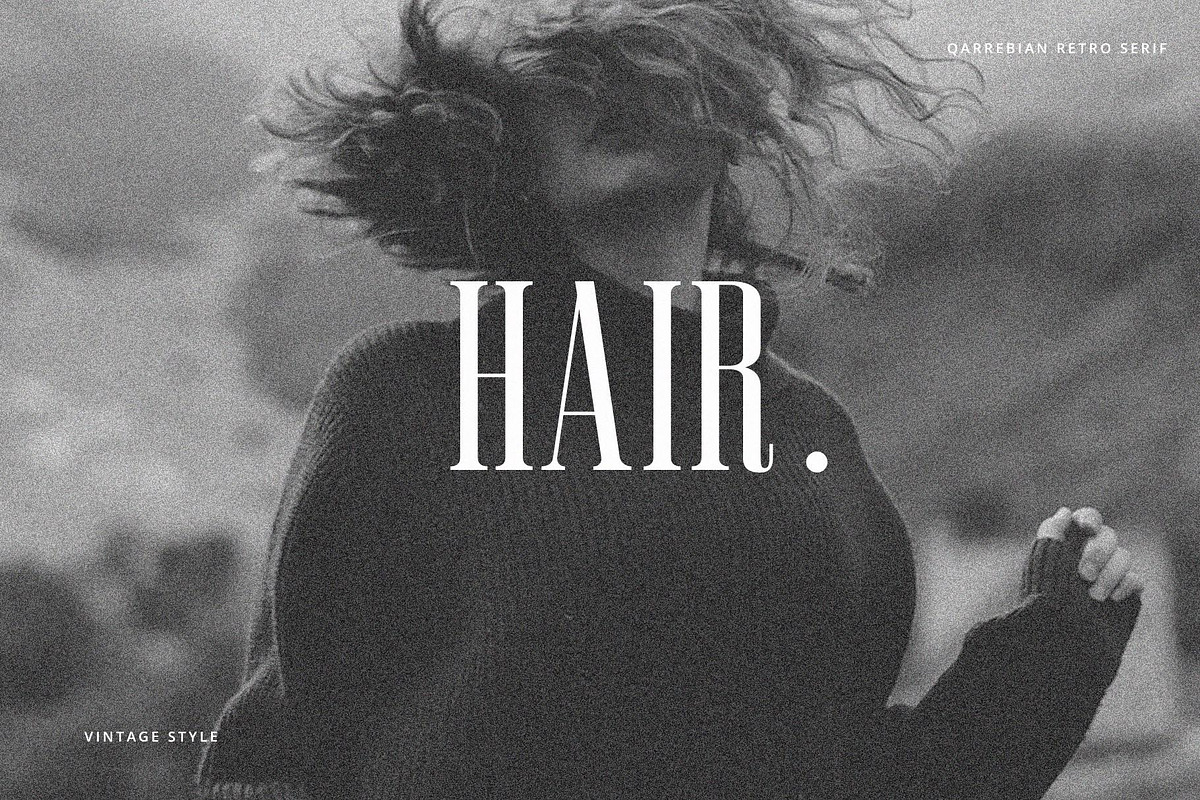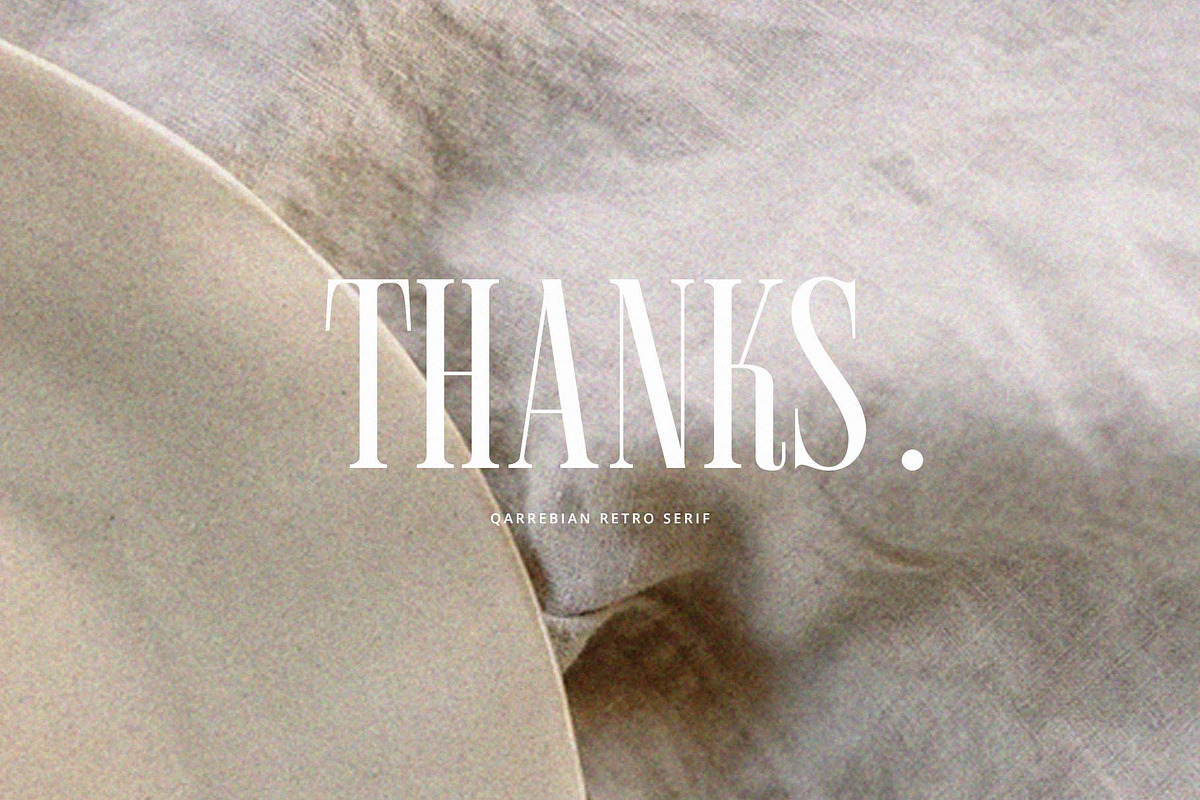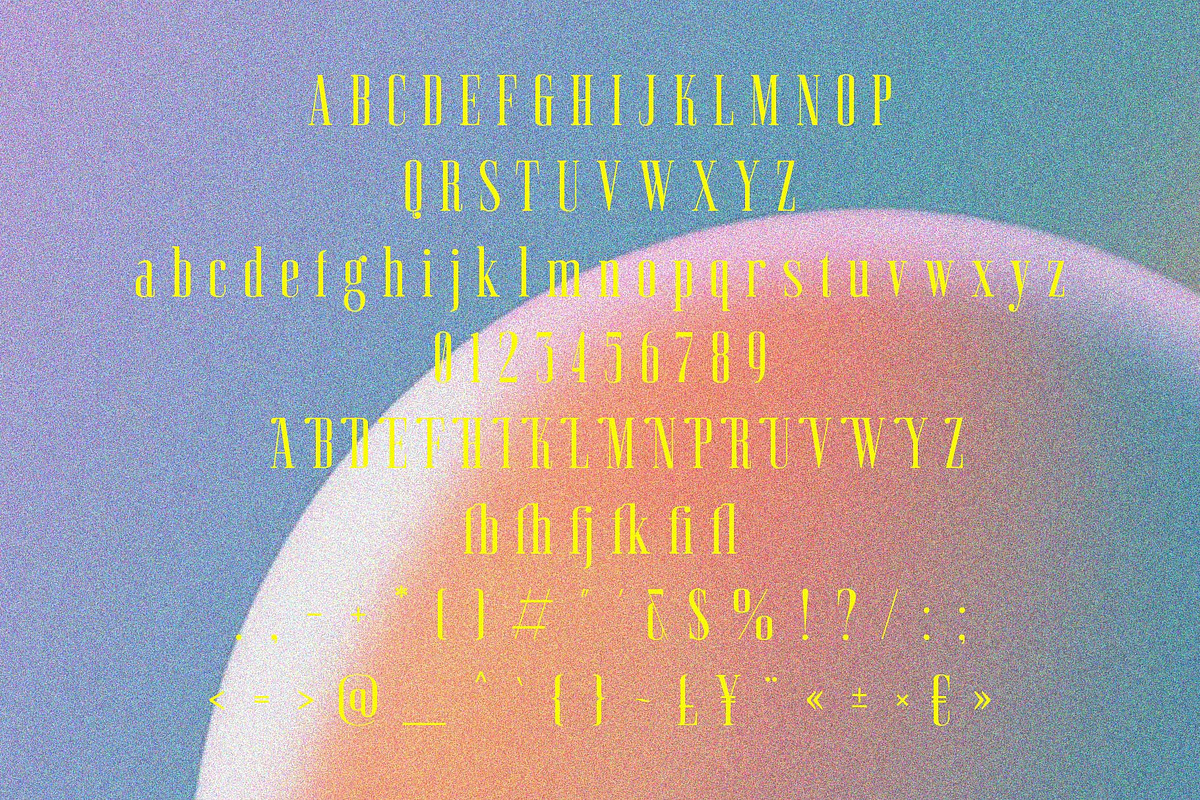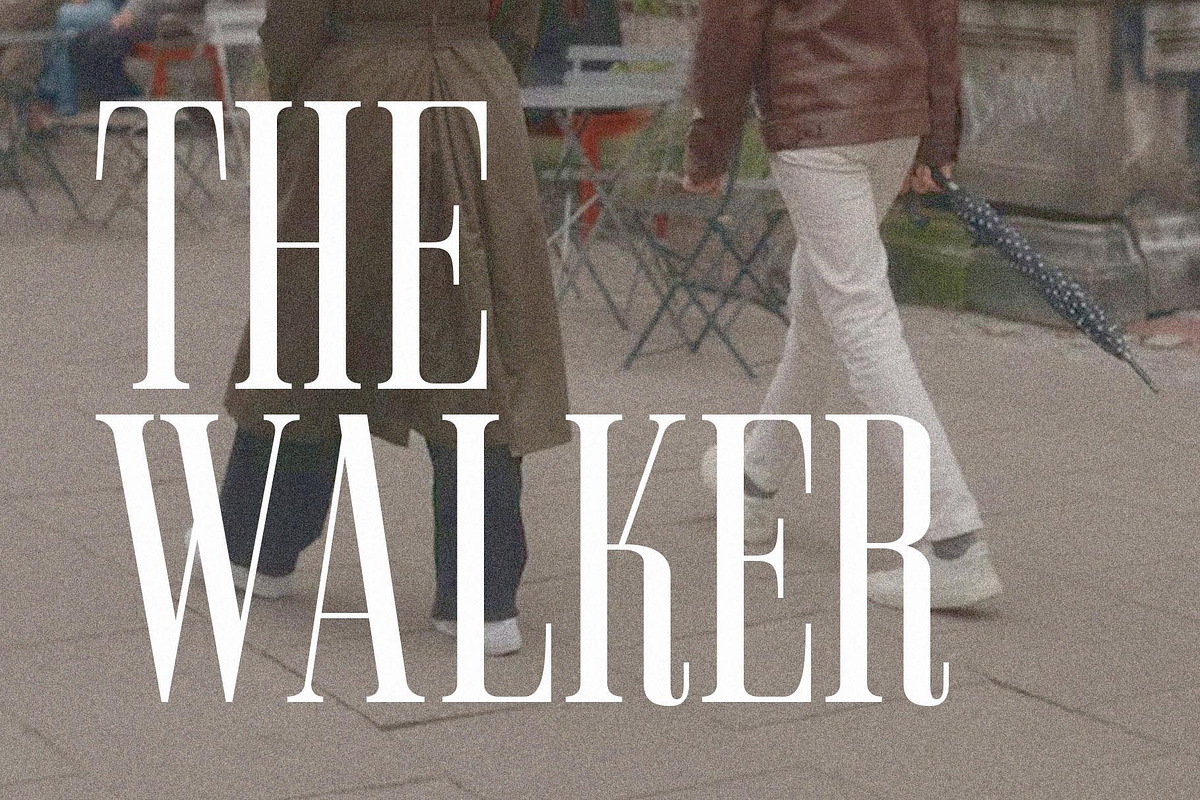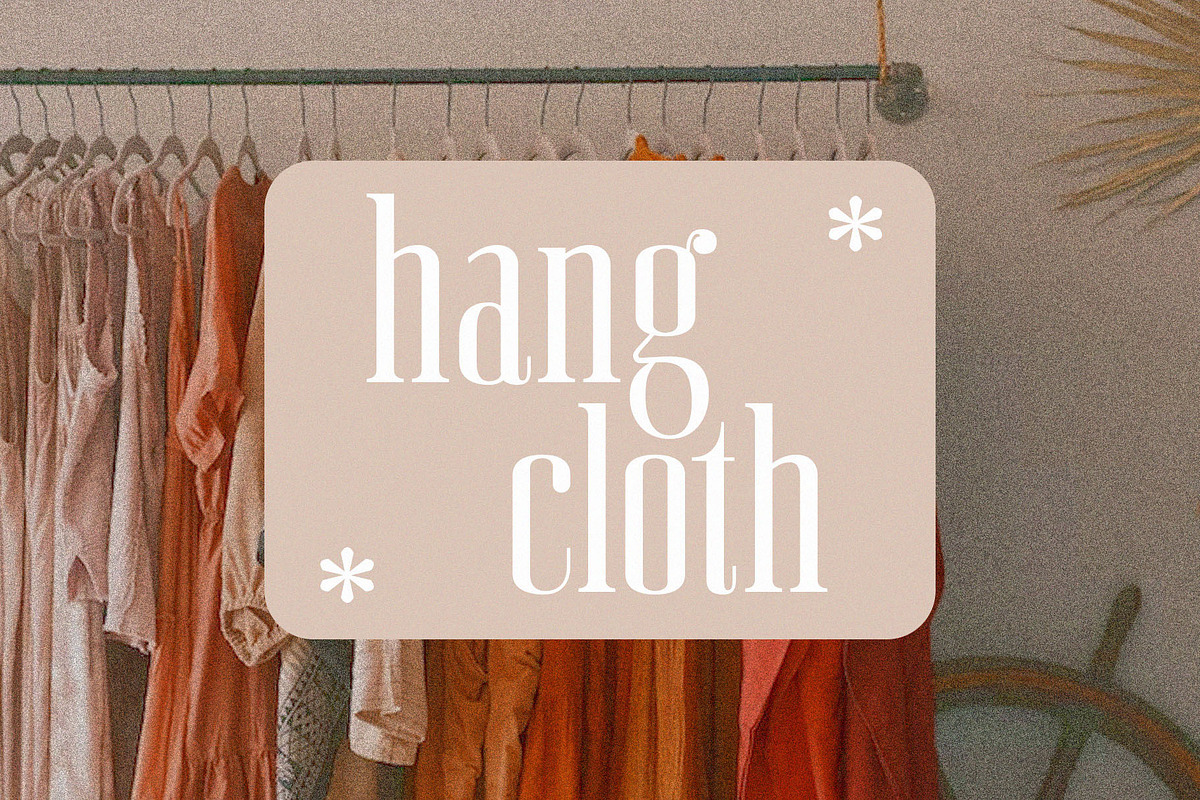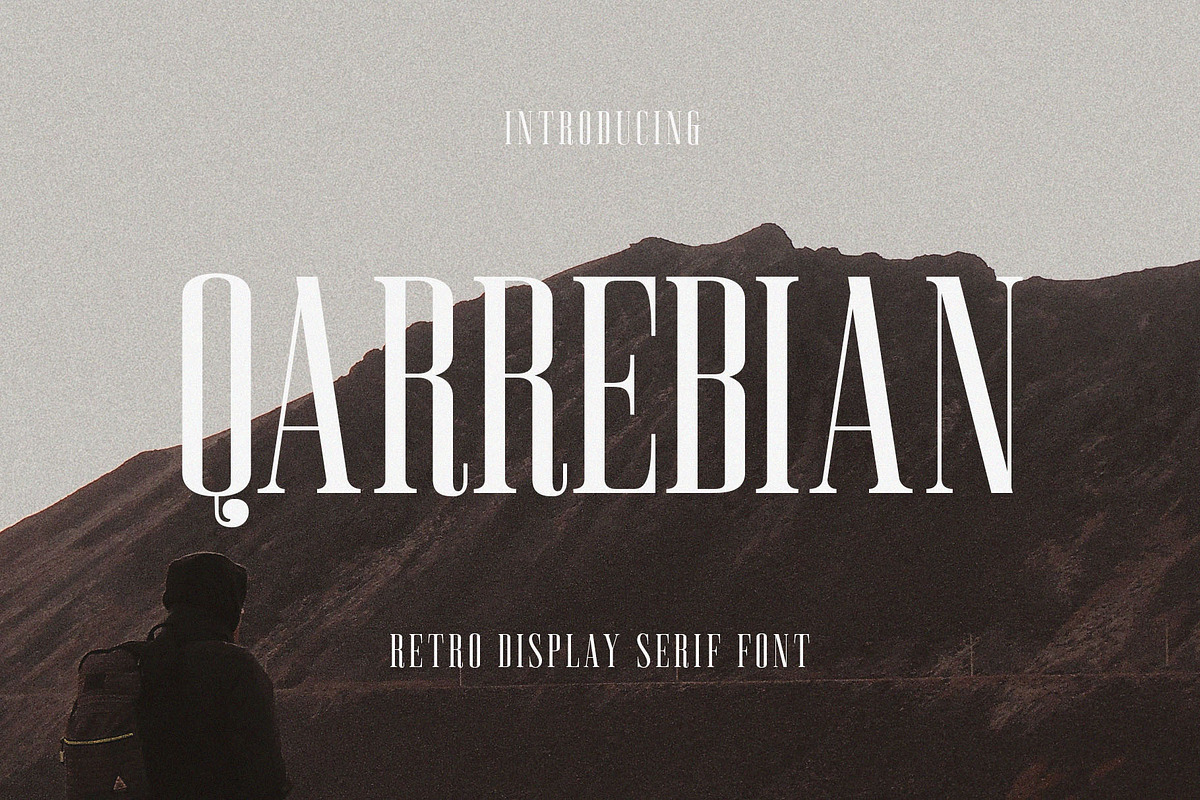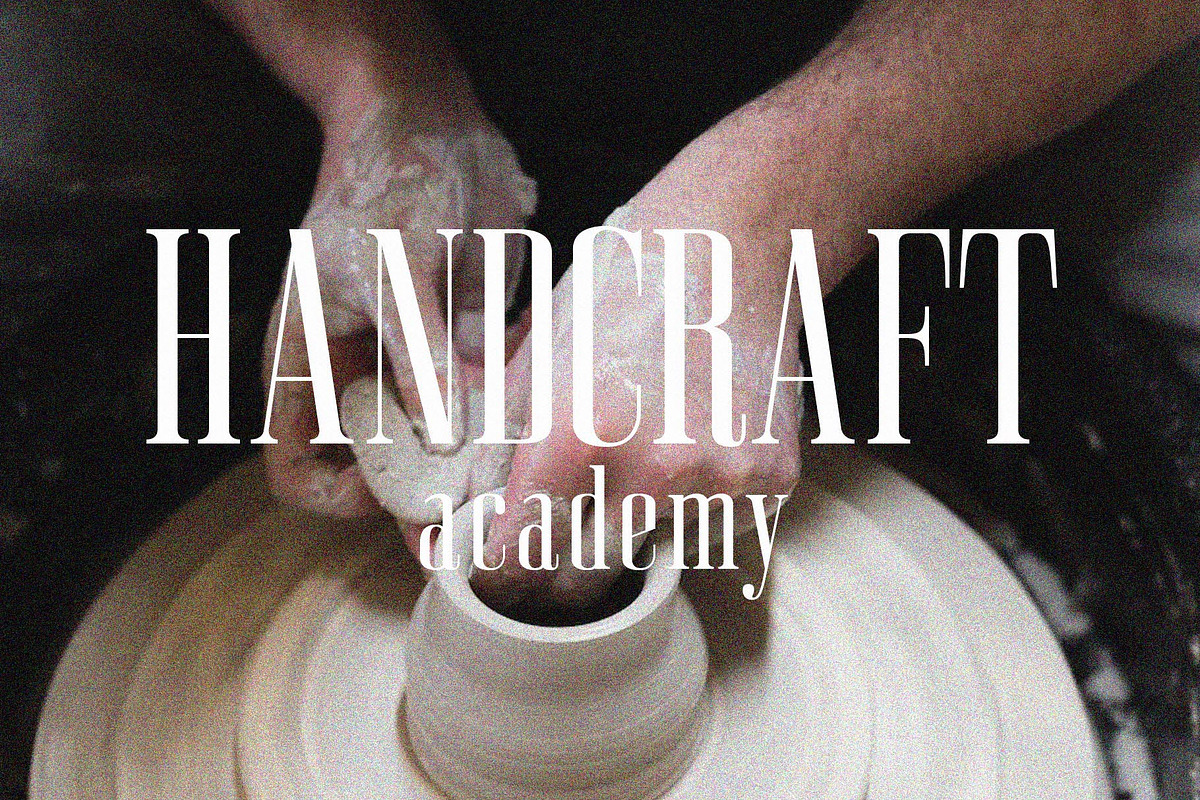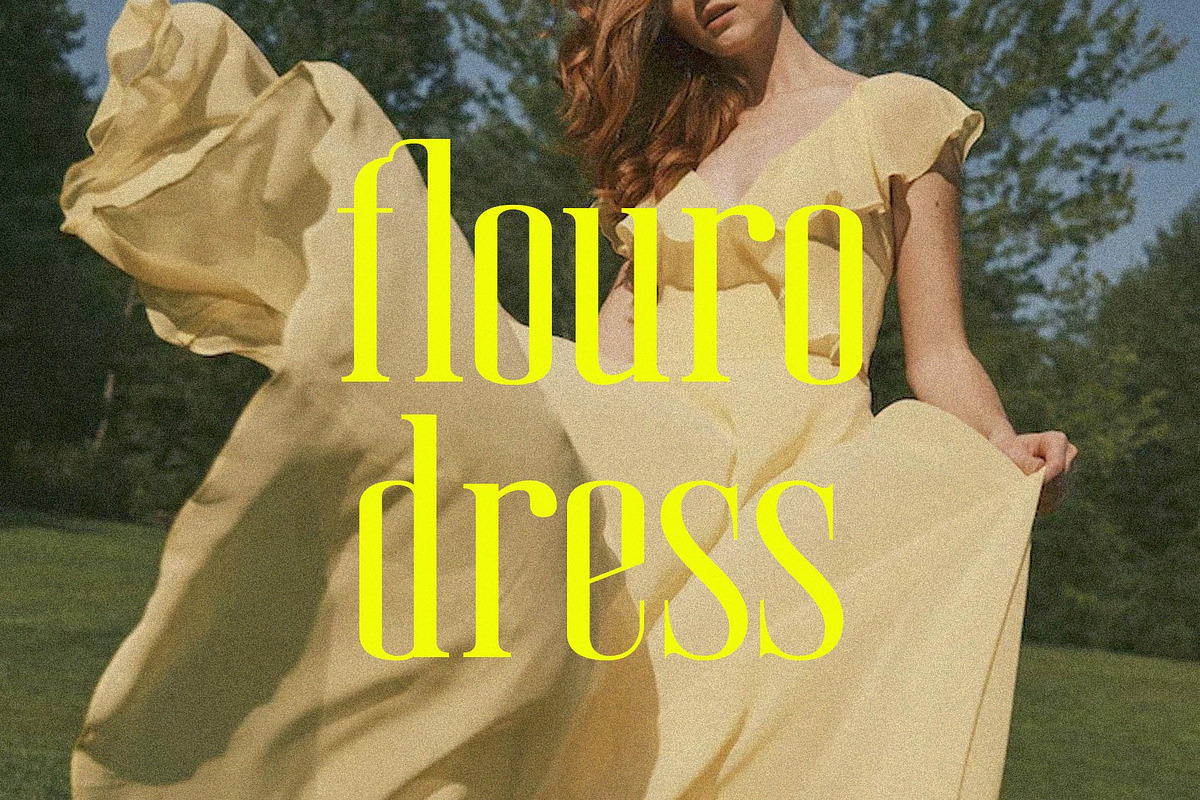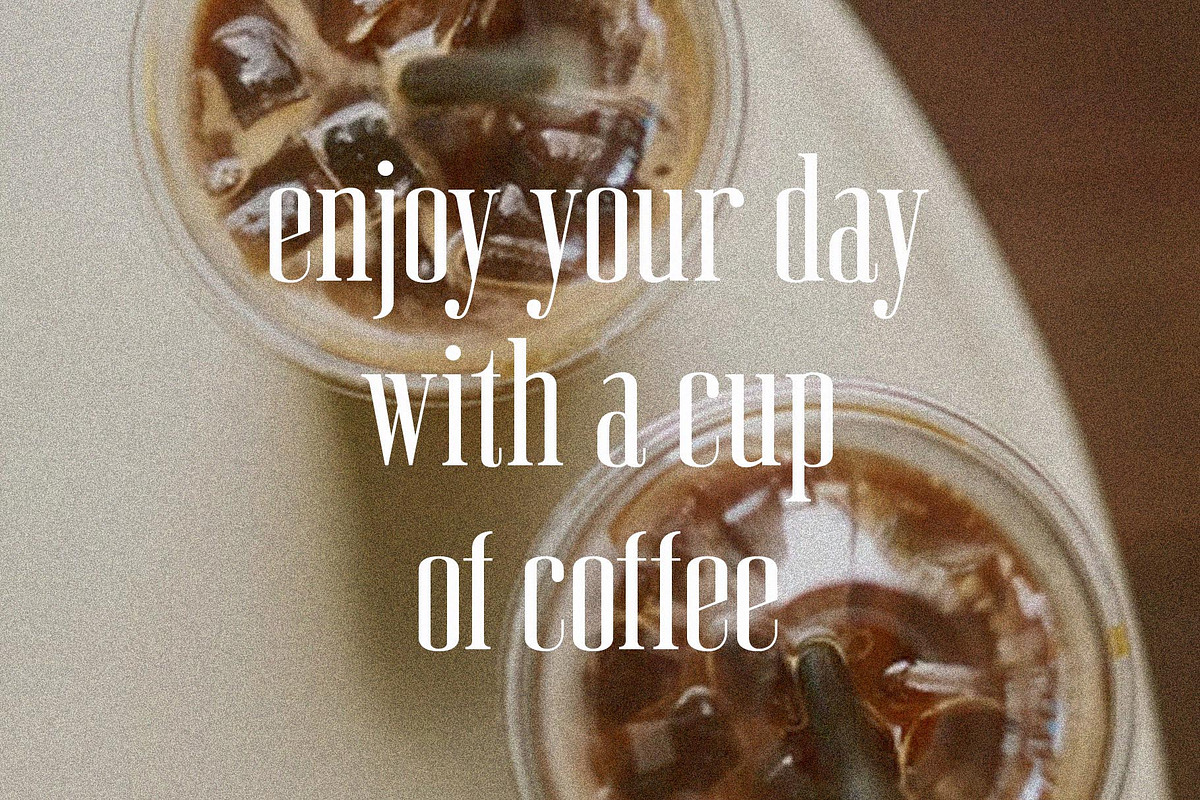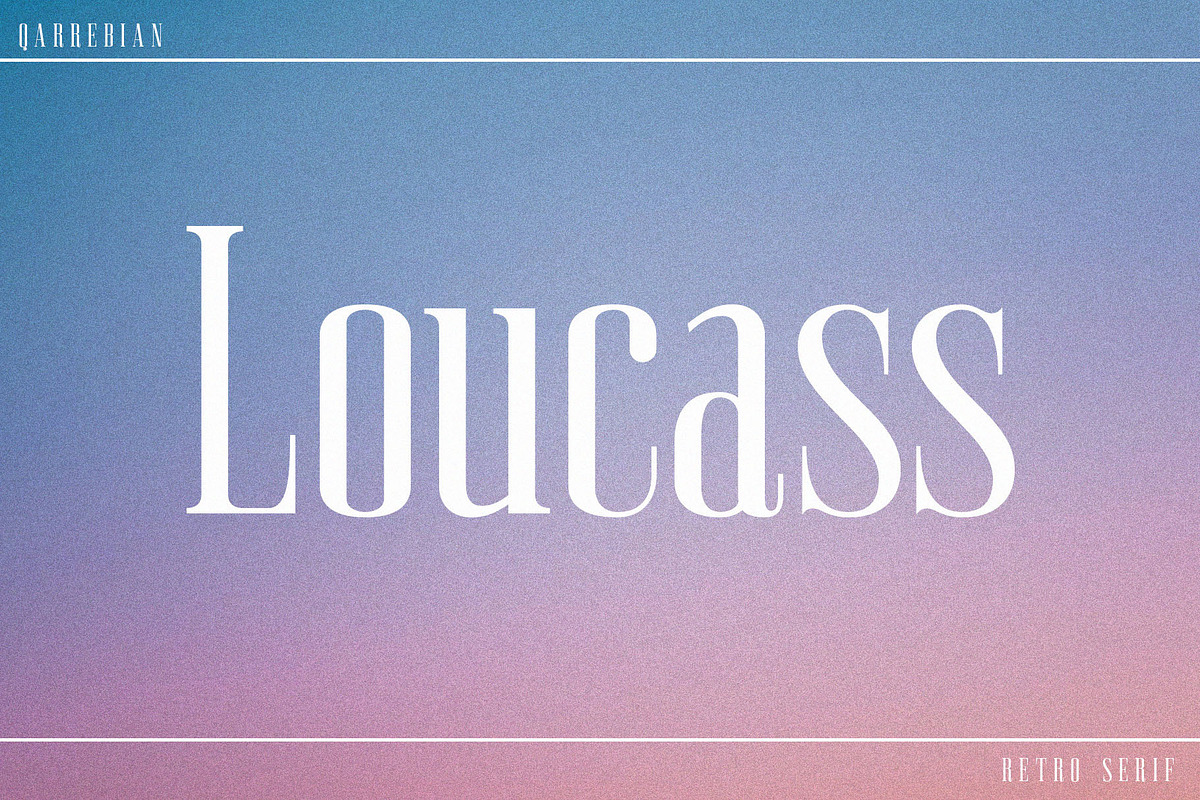
Qarrebian - Retro Display Serif
Introducing our new "Qarrebian" retro and unique serif font with elegant style this is perfect for branding, logos, invitation, magazines, product packaging and more.